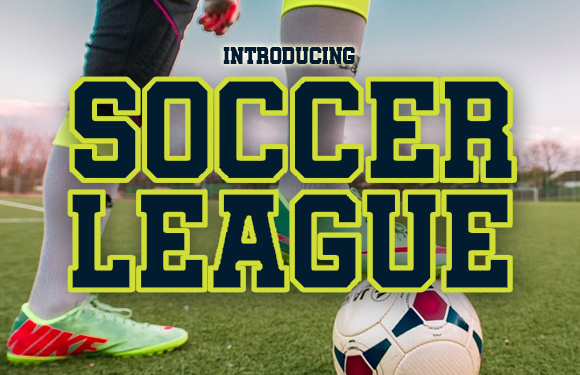
Are you looking for a font that truly captures the essence of athleticism? Look no further than Soccer League Font, the perfect choice for those seeking a bold and powerful display font that demands attention.
Crafted by the talented designer vladimirnikolic, Soccer League Font is a must-have for anyone looking to create impactful designs. With its four unique variations, this font offers endless creative possibilities, making it perfect for use in a wide range of applications, including t-shirts, posters, prints, and more.
The bold, dynamic lines of Soccer League Font are sure to grab the attention of your audience and convey a sense of strength and power. Whether you're creating a design for a sports team or simply want to add a touch of athleticism to your work, this font is the perfect choice.
But Soccer League Font isn't just about boldness and strength - it's also incredibly versatile, making it a valuable addition to any designer's toolkit. With its clean lines and modern aesthetic, this font is the perfect choice for everything from logos to branding materials to web design.